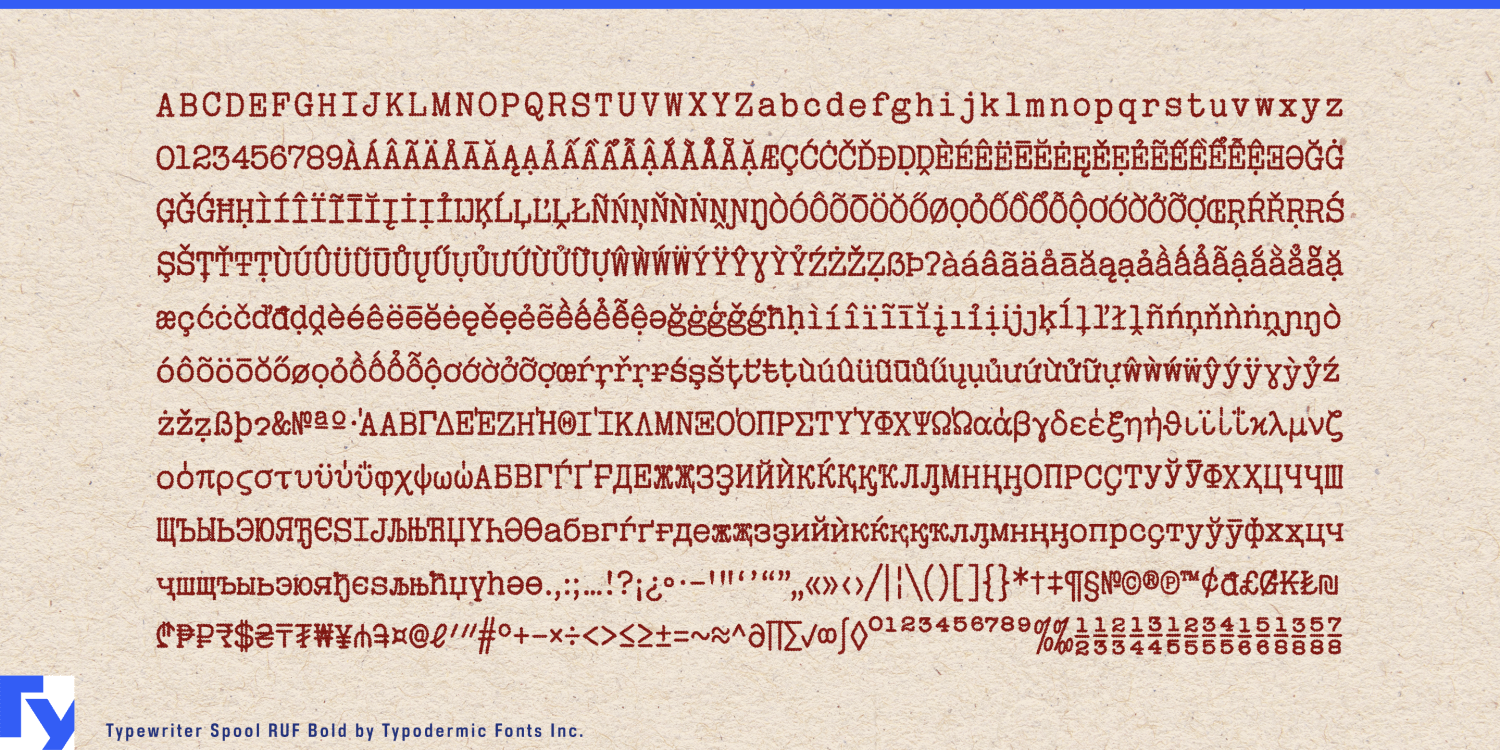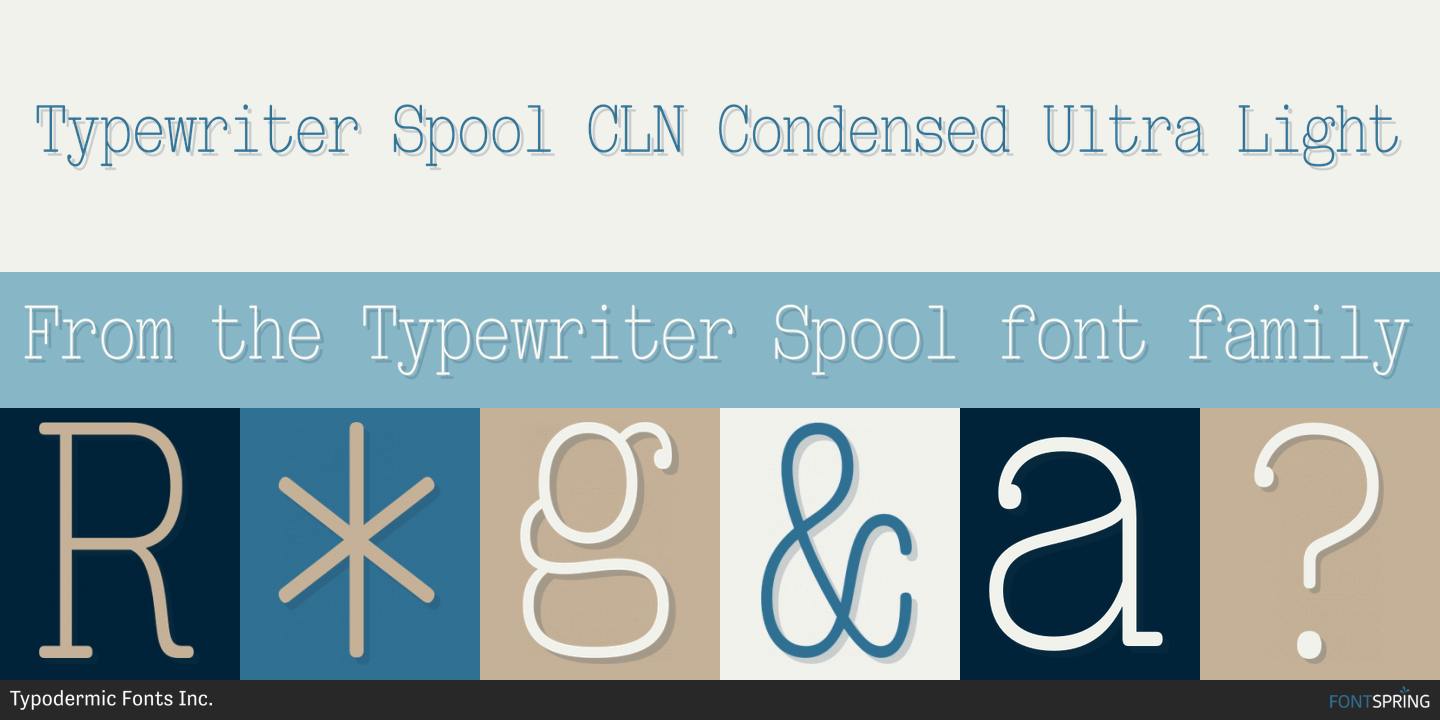
Typewriter Spool Cln Bold Font . It maintains a uniform stroke. Typewriter spool cln is clean, precise, and regular. Introducing typewriter spool, a typeface collection inspired by the timeless beauty of the underwood no. On a real typewriter, heavier text. Votes, rated based on results identification. And with seven weights, three widths, and underline available in the clean and precise typewriter spool cln, you’ll have all the. And with seven weights, three widths, and underline available in the clean and precise typewriter spool cln, you’ll have all the. This font features a classic typewriter style with bold, rounded serifs and a clean, extended appearance. Download typewriter spool cln bold italic font. Introducing typewriter spool, a typeface collection inspired by the timeless beauty of the underwood no. 5, and carefully crafted for the modern designer who appreciates the artistry of. It comes in seven weights, three widths and underline.
It maintains a uniform stroke. Introducing typewriter spool, a typeface collection inspired by the timeless beauty of the underwood no. Typewriter spool cln is clean, precise, and regular. Download typewriter spool cln bold italic font. This font features a classic typewriter style with bold, rounded serifs and a clean, extended appearance. Introducing typewriter spool, a typeface collection inspired by the timeless beauty of the underwood no. 5, and carefully crafted for the modern designer who appreciates the artistry of. It comes in seven weights, three widths and underline. And with seven weights, three widths, and underline available in the clean and precise typewriter spool cln, you’ll have all the. And with seven weights, three widths, and underline available in the clean and precise typewriter spool cln, you’ll have all the.
Typewriter Spool Cln Bold Font Introducing typewriter spool, a typeface collection inspired by the timeless beauty of the underwood no. On a real typewriter, heavier text. Votes, rated based on results identification. And with seven weights, three widths, and underline available in the clean and precise typewriter spool cln, you’ll have all the. Typewriter spool cln is clean, precise, and regular. Download typewriter spool cln bold italic font. Introducing typewriter spool, a typeface collection inspired by the timeless beauty of the underwood no. Introducing typewriter spool, a typeface collection inspired by the timeless beauty of the underwood no. 5, and carefully crafted for the modern designer who appreciates the artistry of. This font features a classic typewriter style with bold, rounded serifs and a clean, extended appearance. And with seven weights, three widths, and underline available in the clean and precise typewriter spool cln, you’ll have all the. It comes in seven weights, three widths and underline. It maintains a uniform stroke.
Typewriter Bold Font FontYukle Typewriter Spool Cln Bold Font Typewriter spool cln is clean, precise, and regular. Votes, rated based on results identification. 5, and carefully crafted for the modern designer who appreciates the artistry of. And with seven weights, three widths, and underline available in the clean and precise typewriter spool cln, you’ll have all the. Introducing typewriter spool, a typeface collection inspired by the timeless beauty of. Typewriter Spool Cln Bold Font.
American Typewriter Bold Font Free Download softiswriting Typewriter Spool Cln Bold Font It comes in seven weights, three widths and underline. This font features a classic typewriter style with bold, rounded serifs and a clean, extended appearance. On a real typewriter, heavier text. And with seven weights, three widths, and underline available in the clean and precise typewriter spool cln, you’ll have all the. Typewriter spool cln is clean, precise, and regular.. Typewriter Spool Cln Bold Font.
Typewriter Font Serif Fonts on Creative Market Typewriter Spool Cln Bold Font Download typewriter spool cln bold italic font. Introducing typewriter spool, a typeface collection inspired by the timeless beauty of the underwood no. It comes in seven weights, three widths and underline. And with seven weights, three widths, and underline available in the clean and precise typewriter spool cln, you’ll have all the. 5, and carefully crafted for the modern designer. Typewriter Spool Cln Bold Font.
Typodermic Typewriter Spool Cln Bold Font It comes in seven weights, three widths and underline. On a real typewriter, heavier text. Votes, rated based on results identification. 5, and carefully crafted for the modern designer who appreciates the artistry of. And with seven weights, three widths, and underline available in the clean and precise typewriter spool cln, you’ll have all the. This font features a classic. Typewriter Spool Cln Bold Font.
Typewriter Spool Font Family by Typodermic Font Bros Typewriter Spool Cln Bold Font It comes in seven weights, three widths and underline. And with seven weights, three widths, and underline available in the clean and precise typewriter spool cln, you’ll have all the. Votes, rated based on results identification. Download typewriter spool cln bold italic font. And with seven weights, three widths, and underline available in the clean and precise typewriter spool cln,. Typewriter Spool Cln Bold Font.
Typewriter Spool Typodermic Fonts Typewriter Spool Cln Bold Font Download typewriter spool cln bold italic font. And with seven weights, three widths, and underline available in the clean and precise typewriter spool cln, you’ll have all the. It maintains a uniform stroke. 5, and carefully crafted for the modern designer who appreciates the artistry of. And with seven weights, three widths, and underline available in the clean and precise. Typewriter Spool Cln Bold Font.
Typewriter Spool Font Family by Typodermic Font Bros Typewriter Spool Cln Bold Font Download typewriter spool cln bold italic font. Introducing typewriter spool, a typeface collection inspired by the timeless beauty of the underwood no. Introducing typewriter spool, a typeface collection inspired by the timeless beauty of the underwood no. It maintains a uniform stroke. This font features a classic typewriter style with bold, rounded serifs and a clean, extended appearance. It comes. Typewriter Spool Cln Bold Font.
American Typewriter Bold AmericanTypewriterBold Fonts Free Download Typewriter Spool Cln Bold Font It maintains a uniform stroke. On a real typewriter, heavier text. This font features a classic typewriter style with bold, rounded serifs and a clean, extended appearance. Introducing typewriter spool, a typeface collection inspired by the timeless beauty of the underwood no. 5, and carefully crafted for the modern designer who appreciates the artistry of. Download typewriter spool cln bold. Typewriter Spool Cln Bold Font.